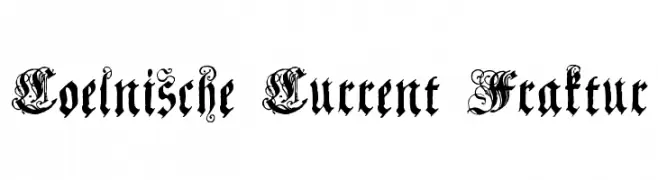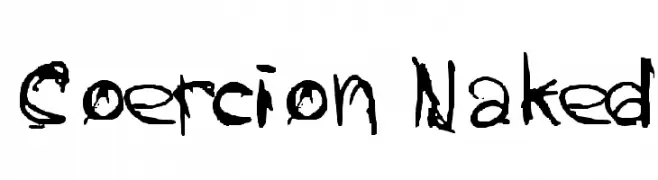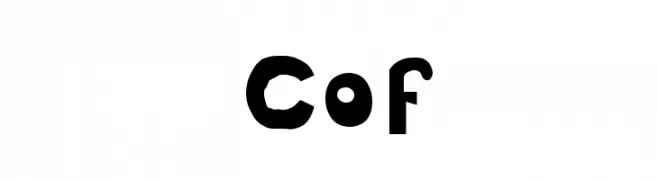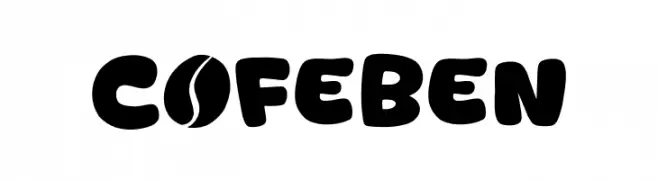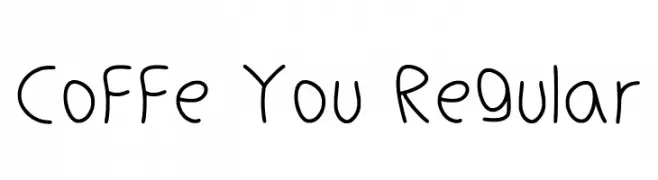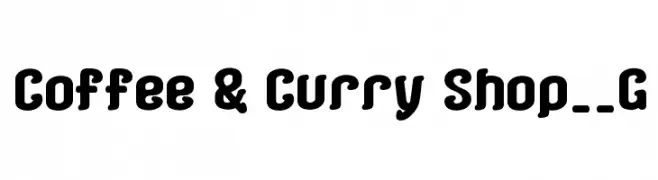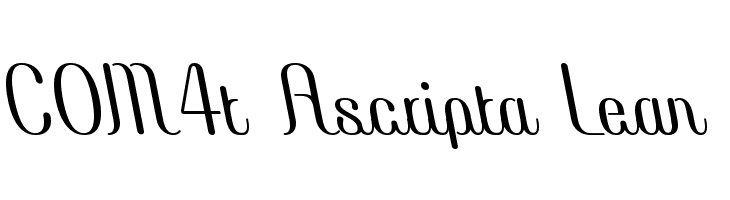
A modern, dotted font with a playful and airy design.
A decorative Blackletter font with ornate, gothic-inspired design.
A playful, hand-drawn font with bold, irregular letterforms.
A bold, playful font with rounded characters and a whimsical style.
A playful, casual handwritten font with smooth, rounded strokes.
A bold, handwritten font with rounded strokes and a playful style.
A bold, playful handwritten font with rounded strokes and a dynamic slant.